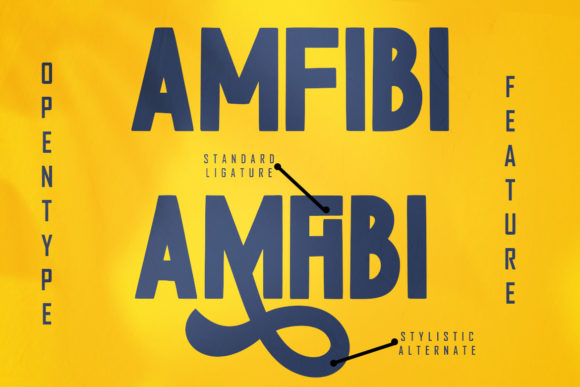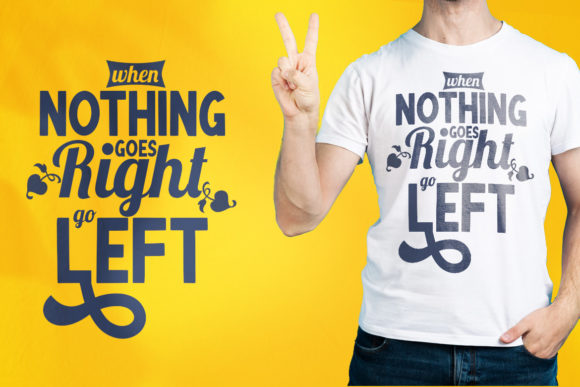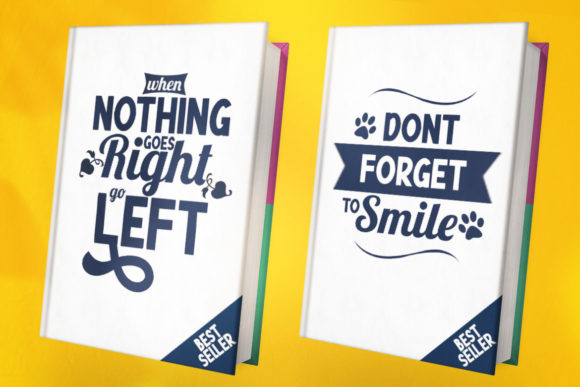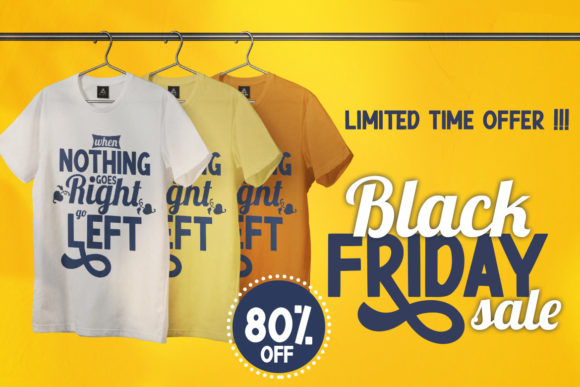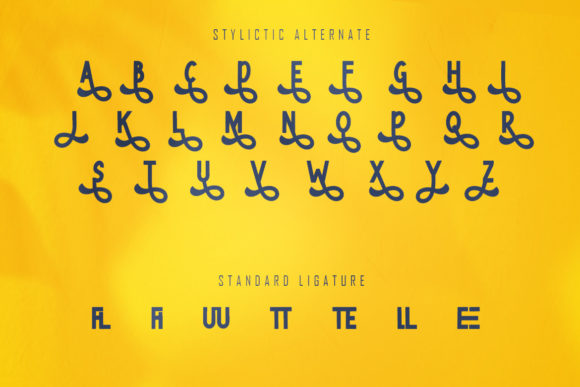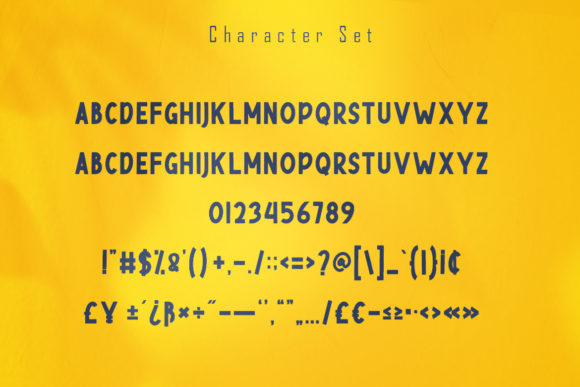
Discover the Perfect Blend of Bold and Unique: Chimfly Font
As designers, we’ve all been there – staring at a blank page, waiting for the perfect font to strike. The search is over. Meet the Chimfly Font, a game-changing sans serif font that’s about to revolutionize your web designs and business cards. Its cool, bold aesthetic is the perfect blend of modern and timeless, making it ideal for anything that requires a unique touch.
For designers, the Chimfly Font is a valuable addition to any toolkit. Its versatility and bold character make it perfect for creating eye-catching headings, logos, and even entire brand identities. With the Chimfly Font, you’ll be able to add a touch of sophistication and personality to any project, setting you apart from the rest.
Chimfly Font Key Features
- Font Family: Chimfly Font is a unique, hand-drawn font family consisting of multiple styles and weights.
- Unique Characteristics: Features a distinctive, whimsical style with intricate details and flourishes, making it suitable for creative and artistic projects.
Chimfly Font Review
Overall, I think the Chimfly font has some great qualities that make it a solid choice for designers, but it also has some limitations that might hold it back from being a top contender.
- Unique character: Chimfly has a distinct, quirky feel that’s perfect for designers looking to add some personality to their projects.
- Legibility: Despite its unconventional design, Chimfly is surprisingly easy to read, making it a great choice for body text and captions.
- Customizability: The font comes with a range of weights and styles, allowing designers to tailor the look to suit their needs.
- Limited versatility: While Chimfly is great for certain projects, it might not be the best choice for more formal or corporate designs.
- Size limitations: At smaller font sizes, Chimfly can become difficult to read and may not be suitable for headlines or titles.
- Glitches in certain software: Some designers have reported issues with Chimfly displaying incorrectly in certain design programs.
Overall, I think Chimfly is a great addition to any designer’s toolkit, but it’s essential to be aware of its limitations and use it judiciously. With a little creativity and planning, Chimfly can add a unique touch to your projects and help you stand out from the crowd.
Chimfly Font Practical Application Guide
Tips for Getting the Most Out of Chimfly
To get the most out of the Chimfly font, use it sparingly and in bold combinations to create visual interest. You can also pair it with other playful fonts to create a unique look.
The Chimfly font is perfect for:
- Children’s book covers and illustrations
- Whimsical advertising and marketing materials